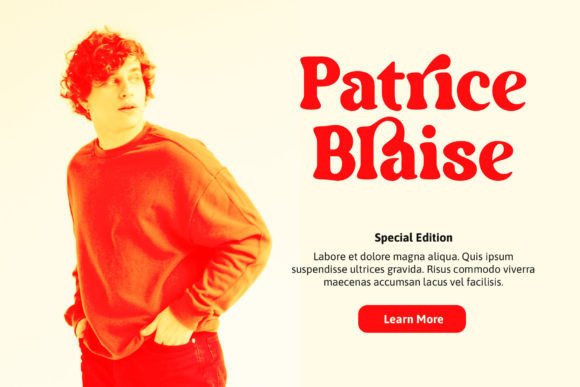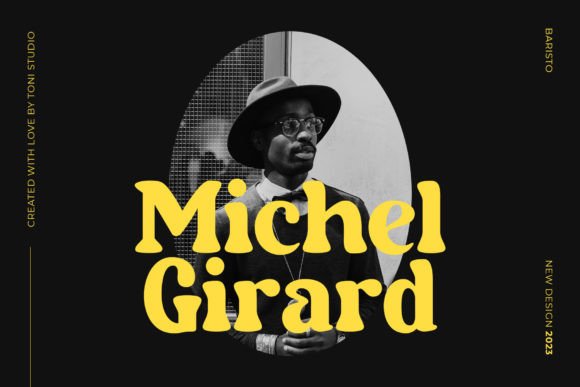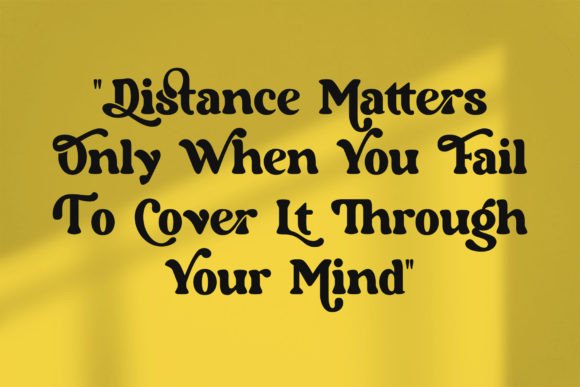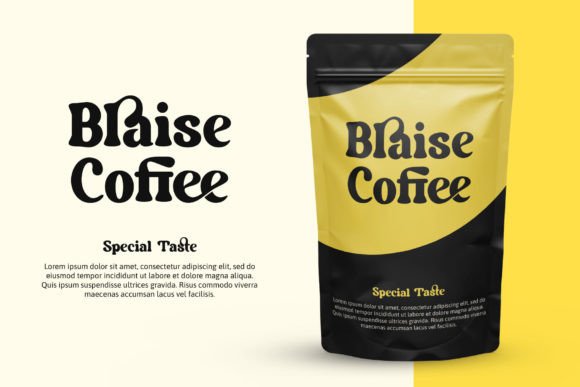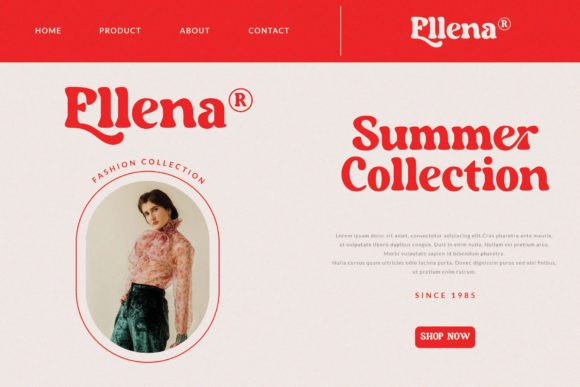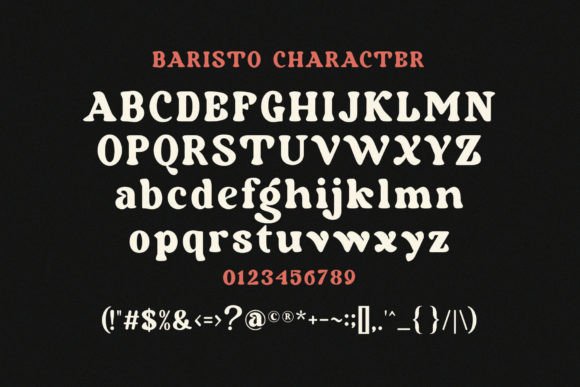
Discover the Timeless Charm of the Baristo Font
There’s something special about stumbling upon an old typewriter or a vintage book with perfectly imperfect typography. The way the letters dance across the page, each one unique and full of character. It’s moments like these that inspire us to create something truly special, and that’s exactly what the Baristo Font is all about.
Baristo Font is a modern vintage serif that combines the elegance of traditional typography with the versatility of modern design. Perfect for filling text gaps and adding a touch of personality to your projects, this font is a game-changer for designers looking to add a little extra flair to their work. With its beautiful alternative styles and ligatures, the Baristo Font is the perfect choice for everything from branding projects to magazine imagery.
Key Features of Baristo Font
- Character Set: The font includes a comprehensive character set, covering multiple languages, including Latin, Cyrillic, and Greek alphabets, as well as various symbols and punctuation marks.
- Unique Characteristics: The font features a distinctive, modern design with a mix of geometric and organic elements, making it suitable for various design applications, including typography, branding, and advertising.
- Font Weight and Style: Baristo Font includes 3 font weights: Light, Regular, and Bold, as well as 2 font styles: Regular and Italic, providing versatility for different design needs.
Designer Review: Baristo Font
I recently had the chance to work with the Baristo Font, and I must say it’s a solid addition to any designer’s toolkit. Here’s my honest review:
- Unique aesthetic: Baristo Font has a distinctive, vintage vibe that sets it apart from more generic fonts.
- Legibility: The font is well-designed for both body text and headings, making it easy to read even in smaller sizes.
- Comprehensive character set: Baristo Font includes a wide range of characters, including accented letters and special symbols.
- Compatibility issues: I experienced some formatting problems when using Baristo Font in older browsers or email clients.
- Lack of bold and italic weights: While the font has a unique look, it’s limited to regular and condensed styles.
- Not ideal for extremely large text: The font’s lines can become a bit fuzzy when scaled up to very large sizes.
Overall, I’m impressed with the Baristo Font’s unique style and legibility, but it’s not without its limitations. If you’re looking for a distinctive font for a specific project, Baristo might be a great choice. However, for more general use or high-stakes applications, you may want to consider a more versatile option.
Baristo Font is ideal for creating elegant and sophisticated designs. Some common use cases include:
– Wedding invitations
– Luxury product packaging
– High-end branding materials
– Elegant typography for websites and social media
Alternatives to Baristo Font
Lato is a popular sans-serif font designed by Łukasz Dziedzic. It is ideal for use in digital products, such as websites and mobile apps, where legibility is crucial. Lato is a more modern and sleek alternative to Baristo Font, with a more open feel and a wider range of weights.
Comparison to Baristo Font: Lato is more modern and has a more open feel, making it suitable for digital products. Baristo Font, on the other hand, has a more traditional feel and is better suited for print materials.
Montserrat is a sans-serif font designed by Julieta Ulanovsky. It is ideal for use in urban and modern designs, such as websites and magazines. Montserrat is a more geometric and modern alternative to Baristo Font, with a more angular feel and a wider range of weights.
What is the recommended font size for optimal readability with Baristo Font?
The recommended font size for optimal readability with Baristo Font is between 12pt and 14pt. However, this may vary depending on the specific application, screen resolution, and personal preference. Experiment with different font sizes to find the most comfortable reading experience.